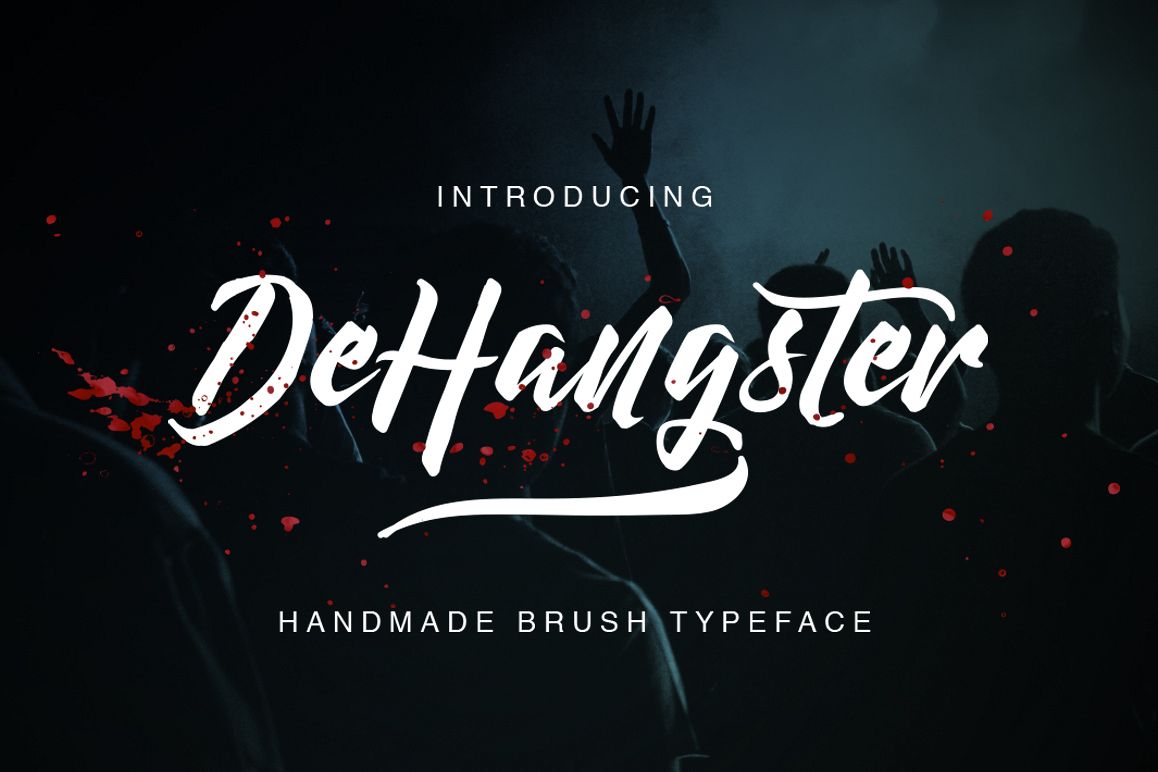
DeHangster Typeface
DeHangster
Introducing :  DeHangster Typeface !!** --- ??              --------------------------------**Read until finish**, to know how to get information about the extended license.DeHangster Typeface is a beautiful hand brush script typeface give the natural looks. Alternate character contain with Ligature and more. You can access all those alternate characters by using OpenType savvy programs such as Adobe Illustrator and Adobe InDesign.Great for Apparel Brand, Logos, printed quotes, invitations, image overlays, greeting cards, product packaging, text headers, any greeting cards, book cover, Painting design style, or any design that needs natural and personal touch & whatever else your imagination holds! . Mix and match the alternate characters to add an attractive message to your design.**File include :**- DeHangster Typeface (OTT & OTF)**To Access Alternate Characters***Click The Link Below:*- by using Windows Character Map with Adobe Photoshop (PS) https://www.youtube.com/watch?v=BScPsiubM1k- by using Adobe Illustrator (AI)https://www.youtube.com/watch?v=y5XTaWYwWA4**  For any question about my font, **Extended License** document and more.Have fun !!Thanks